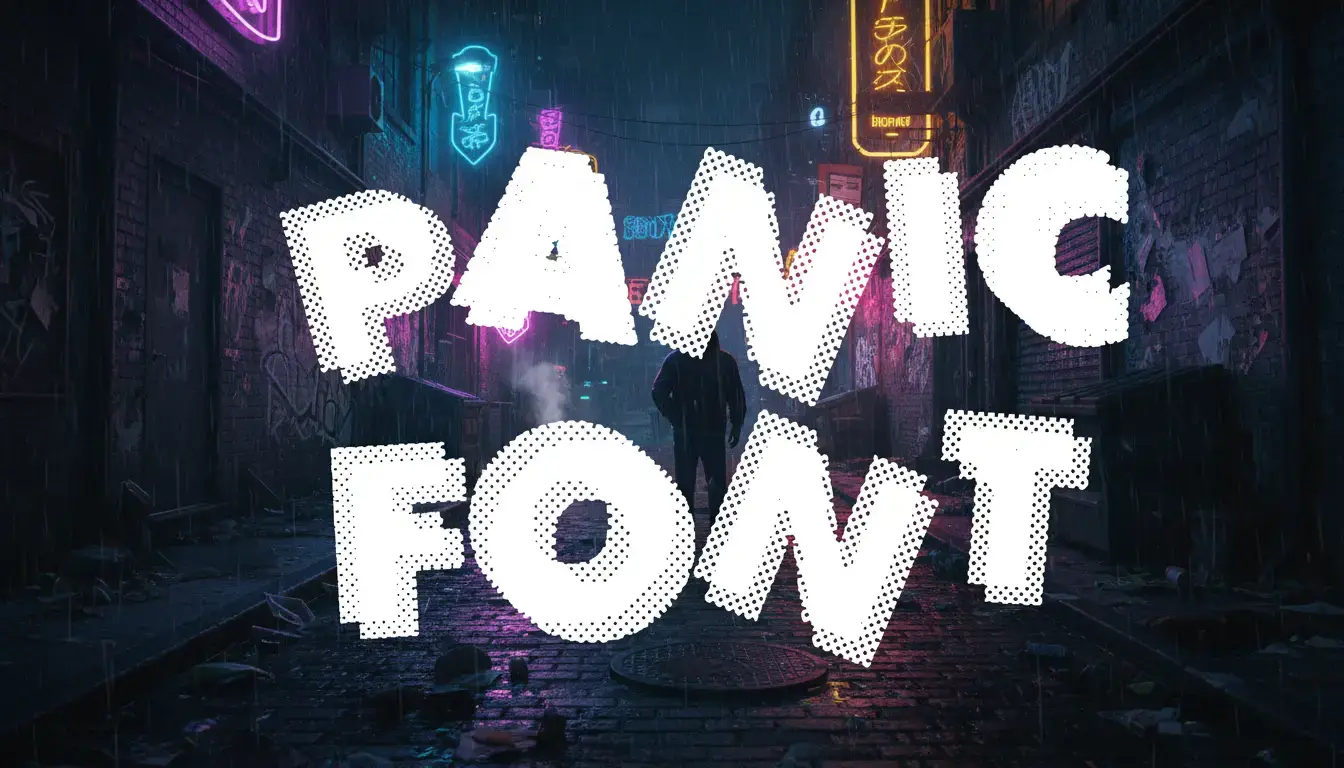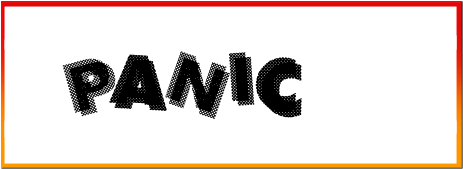
Panic Font
Panic
Panic is a fancy font. Bold and full of character, it's built to stand out rather than blend in. You can download it for free and test it with your own words in the preview above.
What You Can Type With Panic
Panic covers the full alphabet in upper and lowercase, plus all ten numbers, so you can set names, dates and prices without switching fonts. Common punctuation such as &, !, ? and @ is included as well. It also has the accented letters you need for Spanish, French, German, Portuguese and Italian.
Where Panic Works Best
Think of Panic for posters, logos and eye-catching headlines. Use it for one standout word or headline and let simpler fonts handle the rest.
Does Panic support accented letters?
Yes. Panic includes the accented letters needed for Spanish, French, German, Portuguese and Italian, so it works for more than just English.